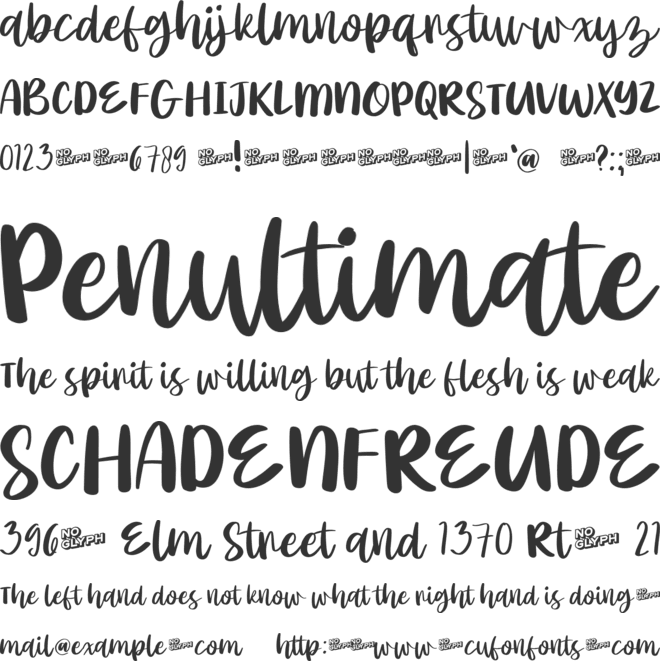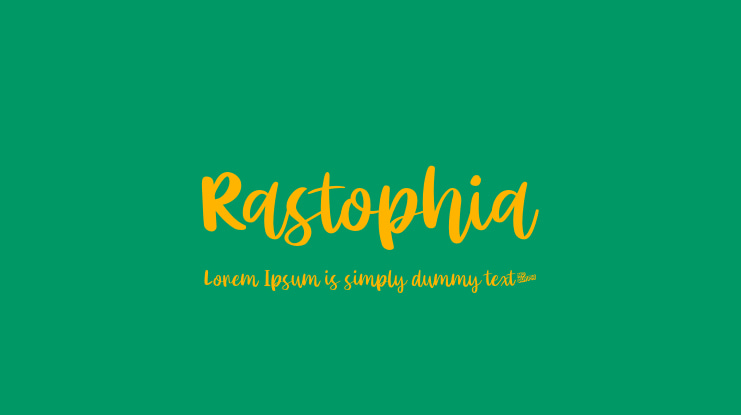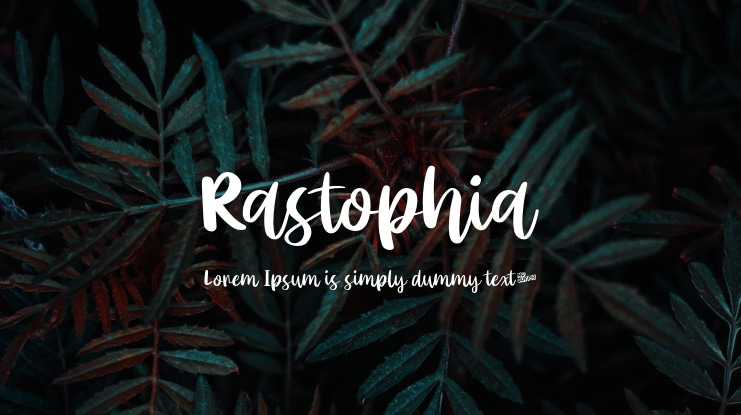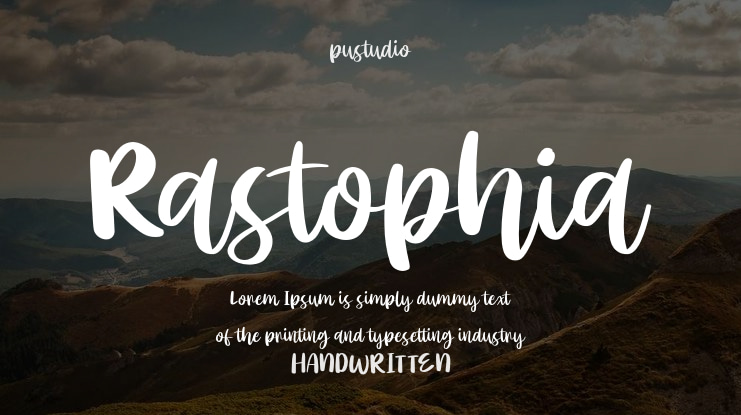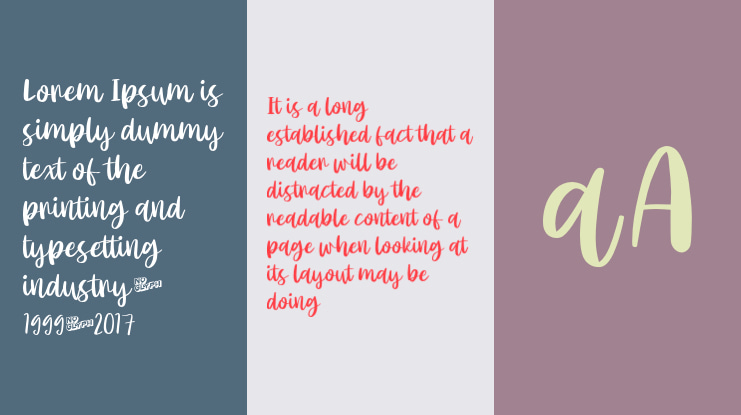
Rastophia Font
Rastophia's script exudes a delightful and refined charm. It is the perfect choice for wedding invitations, thank you cards, quotes, greeting cards, logos, business cards, and any design that requires a touch of handwritten elegance.